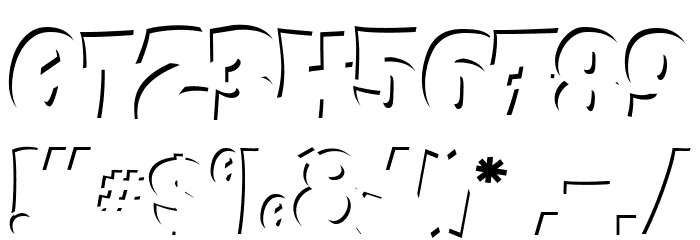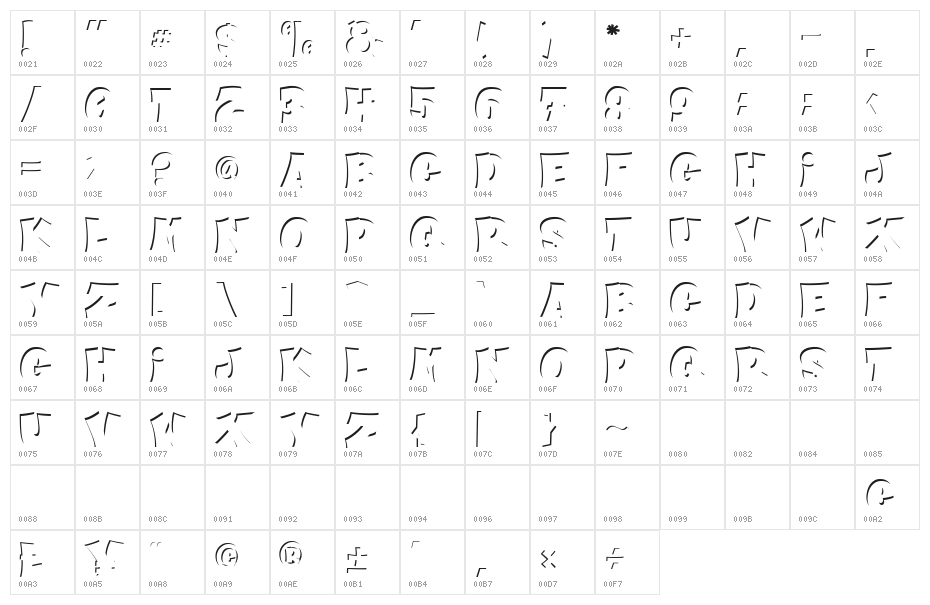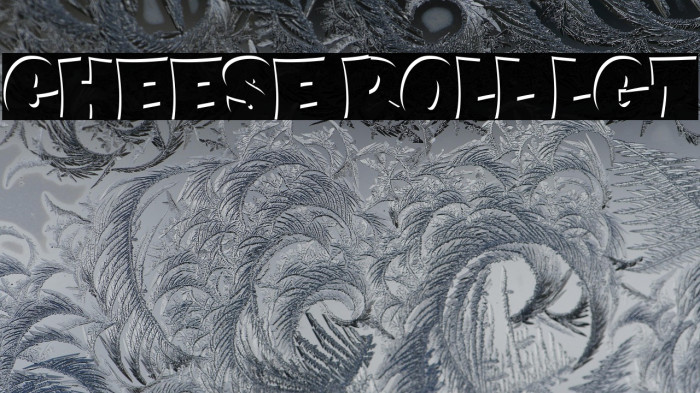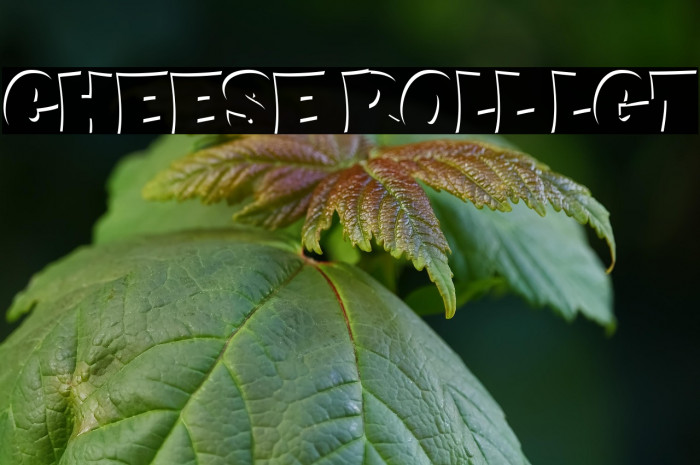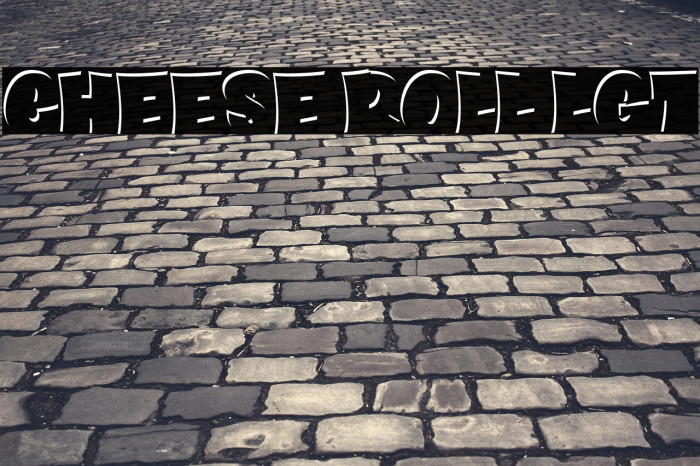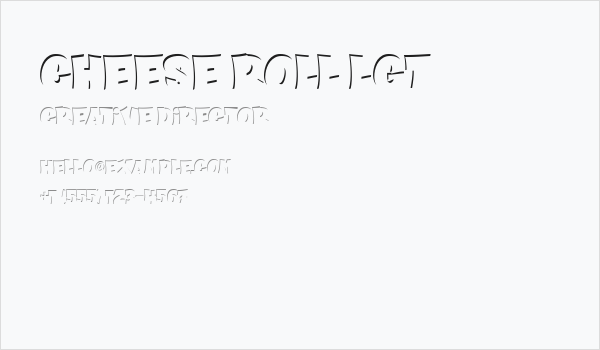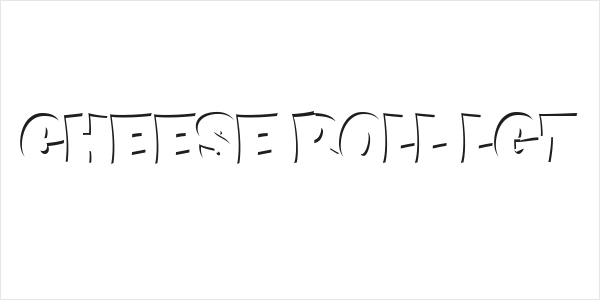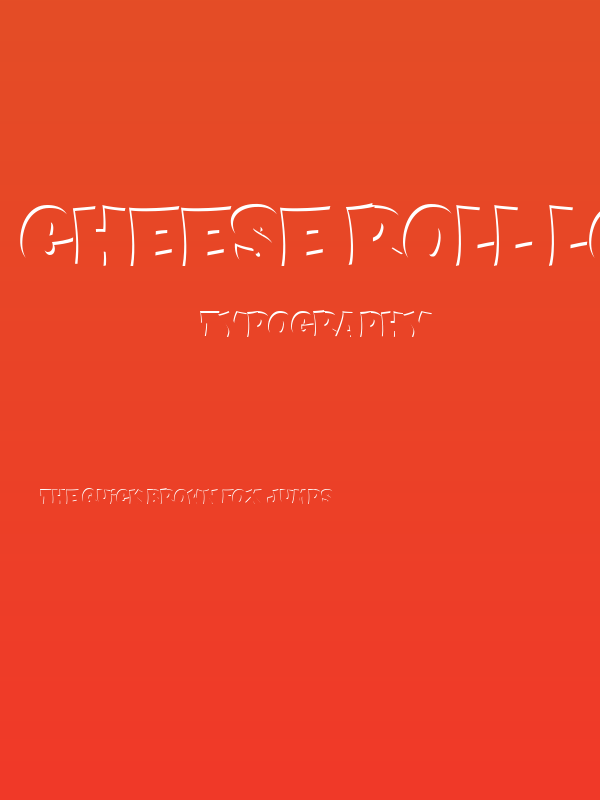
CHEESE ROLL LGT Font
CHEESE ROLL LGT Description
This font features a playful and whimsical design with a stencil-like appearance. Each character is crafted with a series of cut-out sections, giving it a unique and artistic look. The letters have a bold presence with irregular shapes and angles, creating a dynamic and lively feel. The font maintains a consistent thickness throughout, with moderate spacing between characters, allowing for readability while maintaining its distinctive style. The overall design is modern and creative, making it suitable for projects that require a fun and engaging visual element.
| Proposed Projects | Ideal for children's book covers, playful branding, creative posters, and artistic event invitations. |